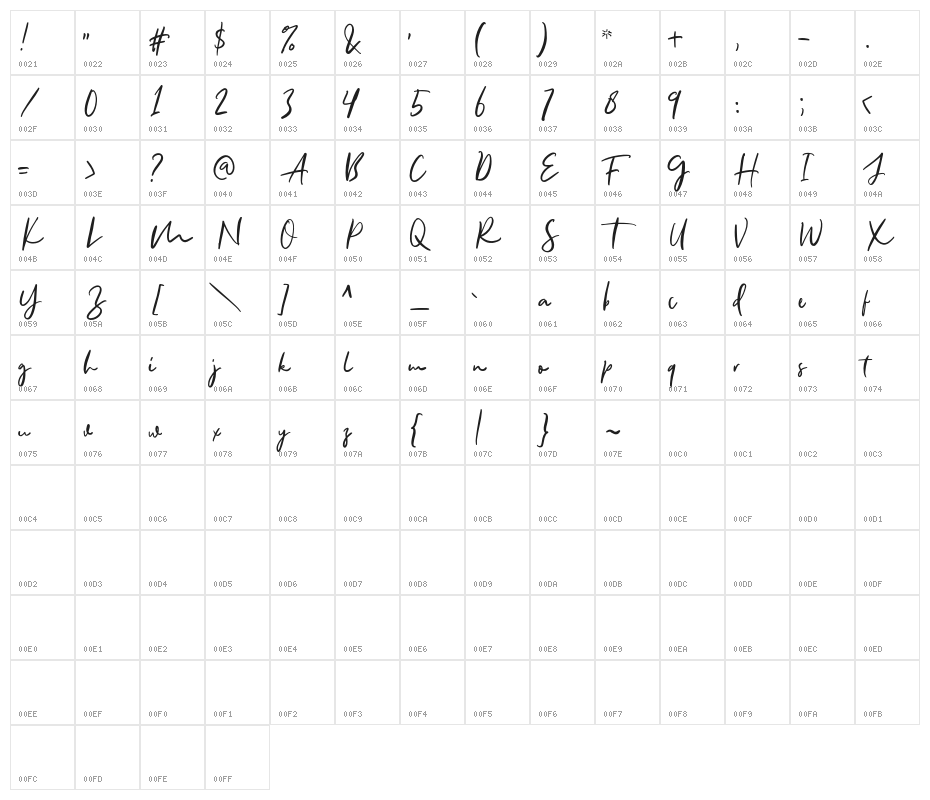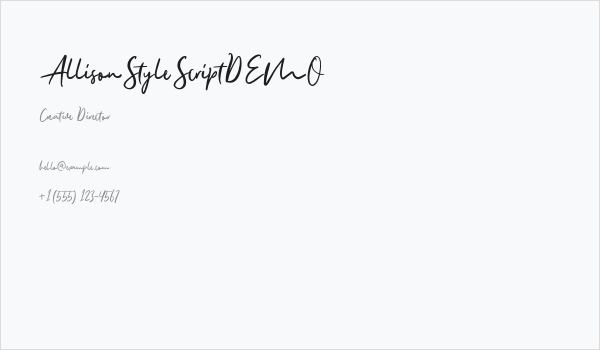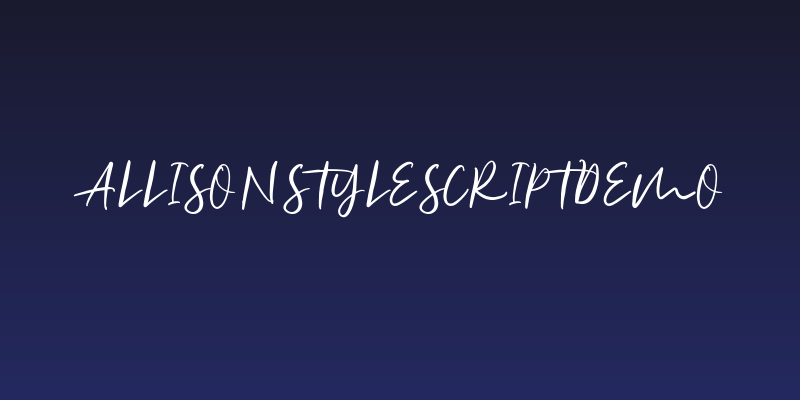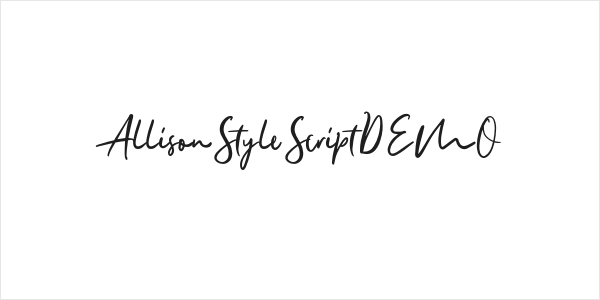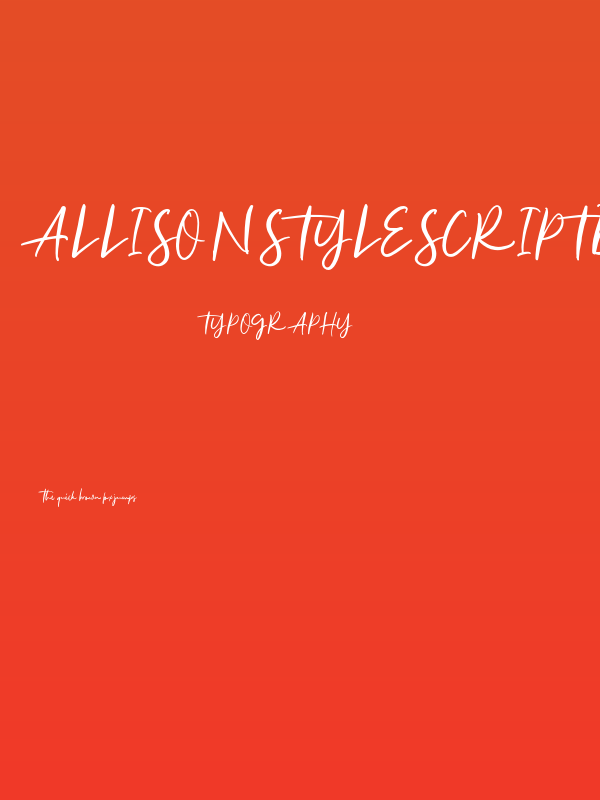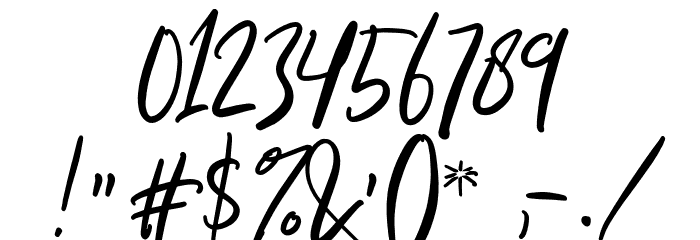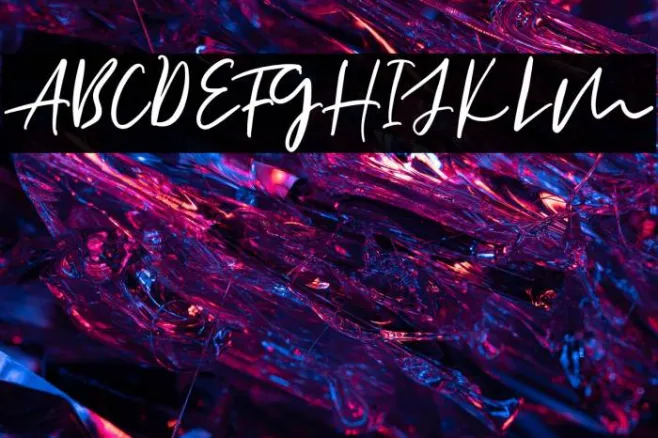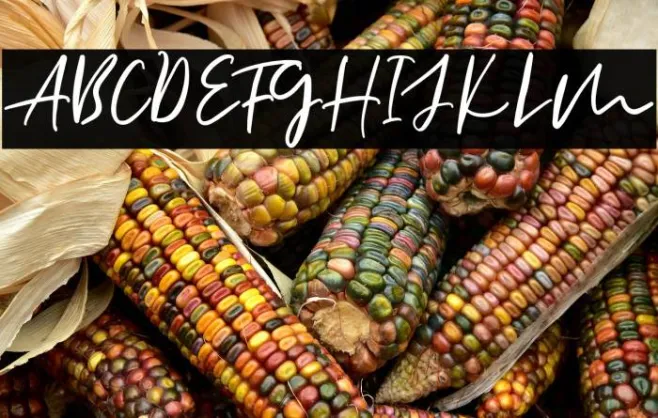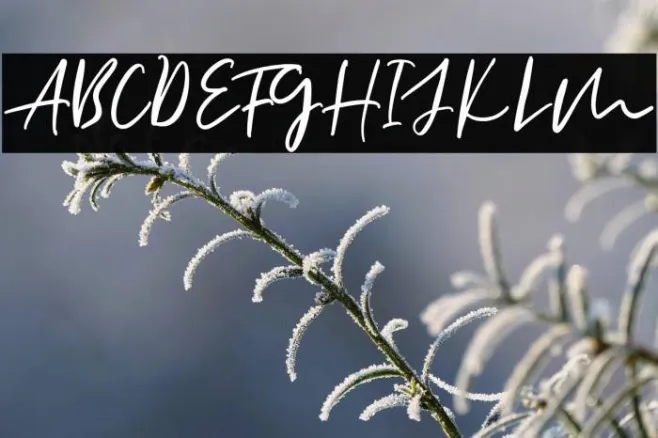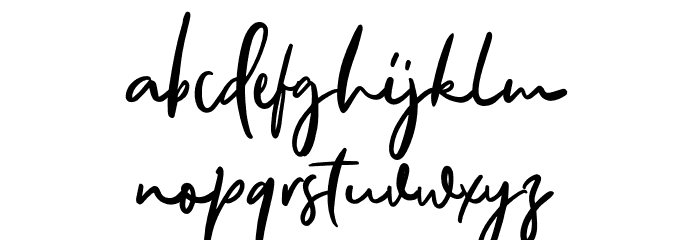
AllisonStyleScriptDEMO Font
AllisonStyleScriptDEMO Description
This script font exudes a casual and lively personality, characterized by its fluid and dynamic strokes. The letters are connected in a natural, flowing manner, reminiscent of elegant handwriting. The uppercase letters are tall and slightly slanted, while the lowercase letters maintain a consistent rhythm and balance. The numerals are distinct, maintaining the same playful style as the alphabet. Special characters are creatively integrated, adding to the font's versatility. The overall appearance is both stylish and approachable, making it suitable for a variety of creative applications.